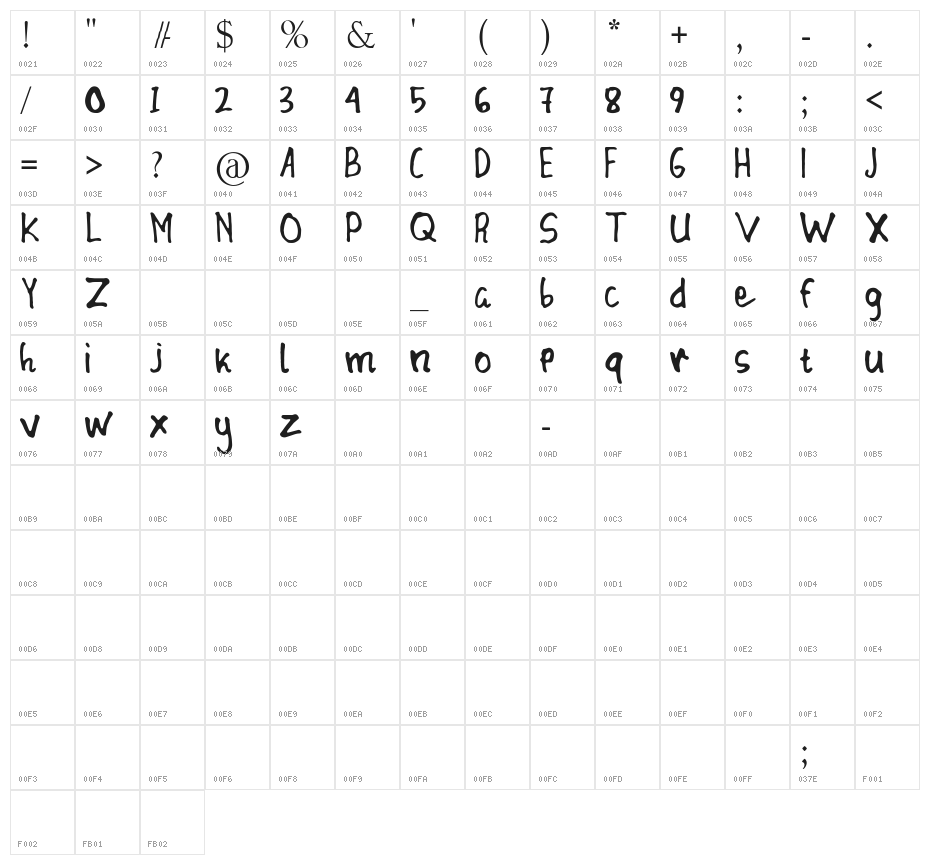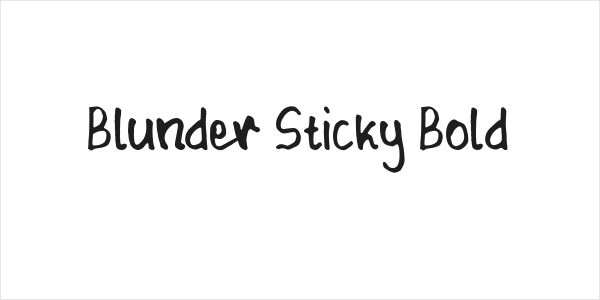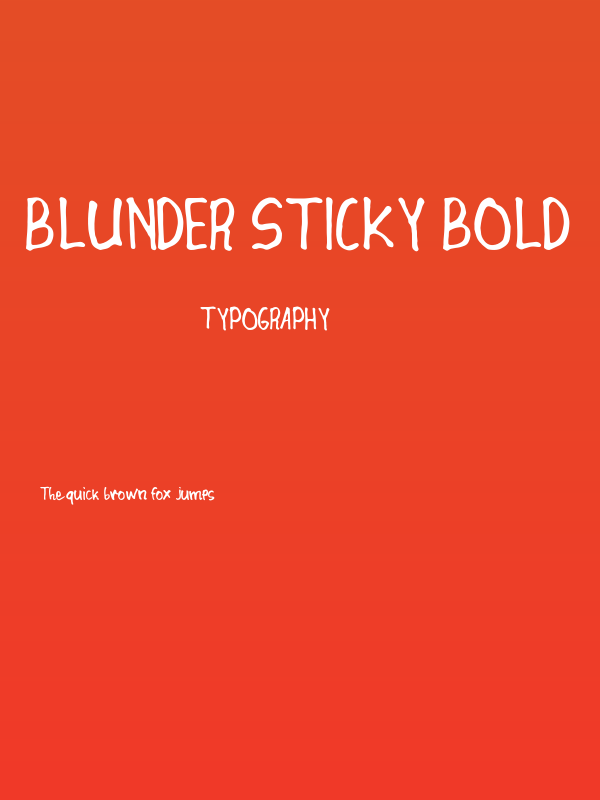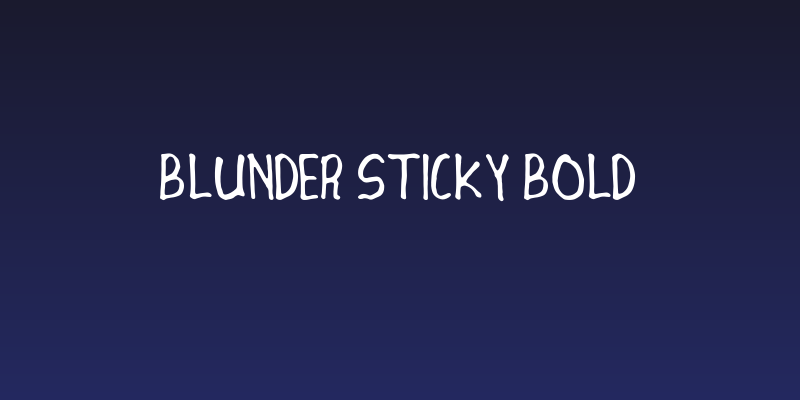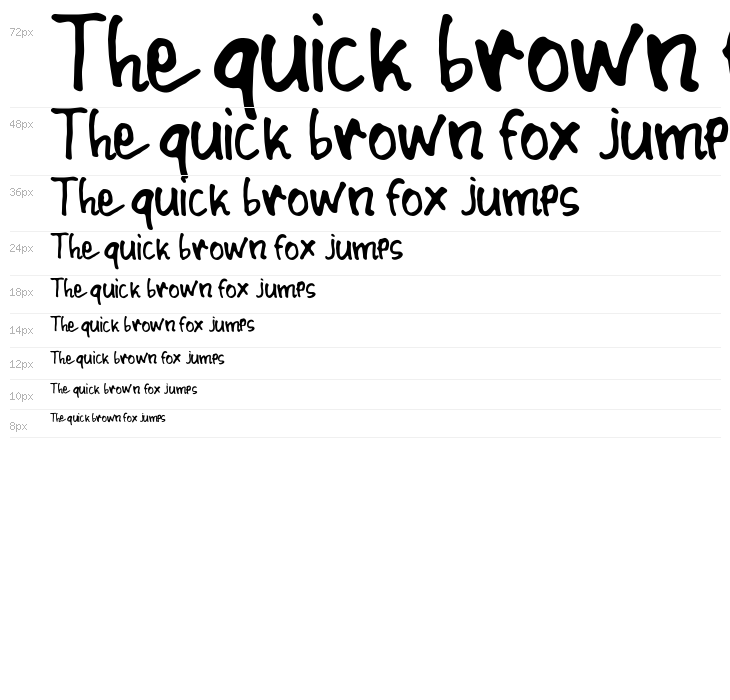
Blunder Sticky Bold Font
Blunder Sticky Bold Description
This font features a playful and bold handwritten style, characterized by its irregular and slightly wavy lines that give it a casual and friendly appearance. The uppercase letters are tall and narrow, while the lowercase letters maintain a consistent height with rounded edges, adding to the font's approachable feel. The numerals are bold and clear, matching the overall style of the alphabet. Special characters are creatively integrated, maintaining the font's whimsical nature. This font is ideal for projects that require a personal touch, such as invitations, greeting cards, or playful branding.
| Overall Style | Playful, Casual |
| Proposed Projects | Ideal for invitations, greeting cards, playful branding, and casual posters. |